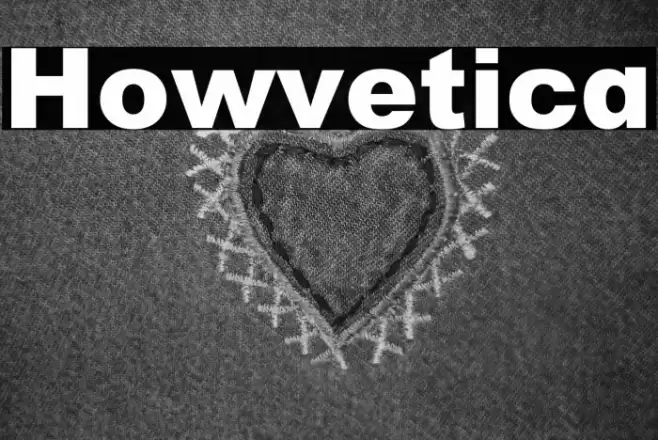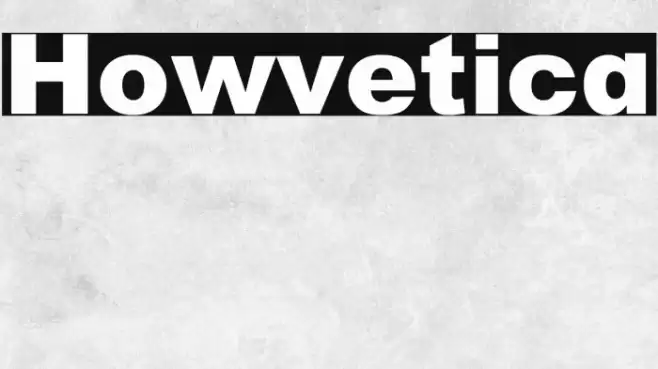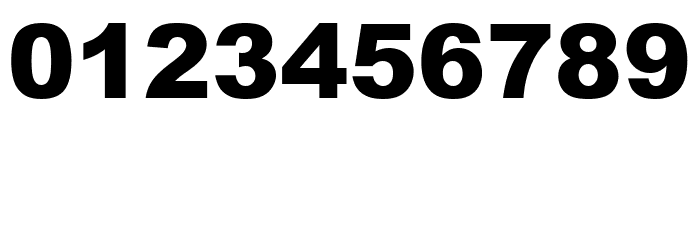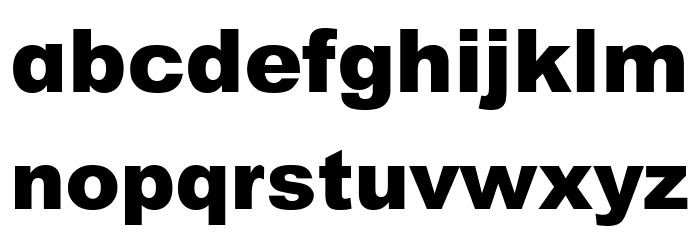
Howvetica Font
Howvetica Description
This font is a bold, sans-serif typeface characterized by its clean, modern lines and strong presence. The letters are evenly spaced with a uniform stroke width, giving it a balanced and harmonious appearance. The uppercase and lowercase letters maintain a consistent style, ensuring readability and versatility. The numbers are clear and distinct, matching the overall boldness of the alphabet. This font is ideal for making a strong visual impact, whether in print or digital formats.
- Proposed Projects: Ideal for branding, advertising, headlines, and digital media where a strong, modern look is desired.
- Use Case: Headlines, Logos, Advertising